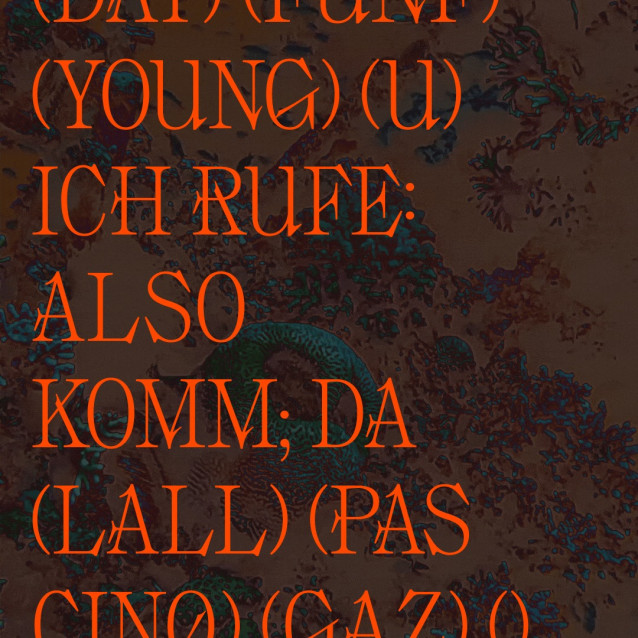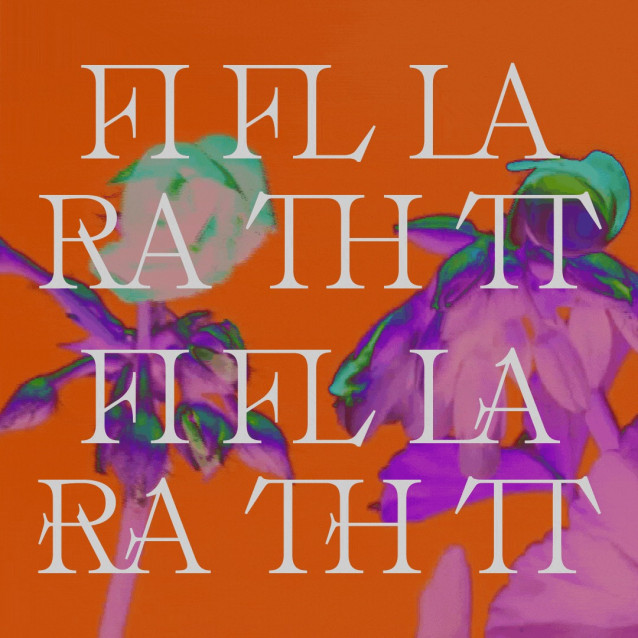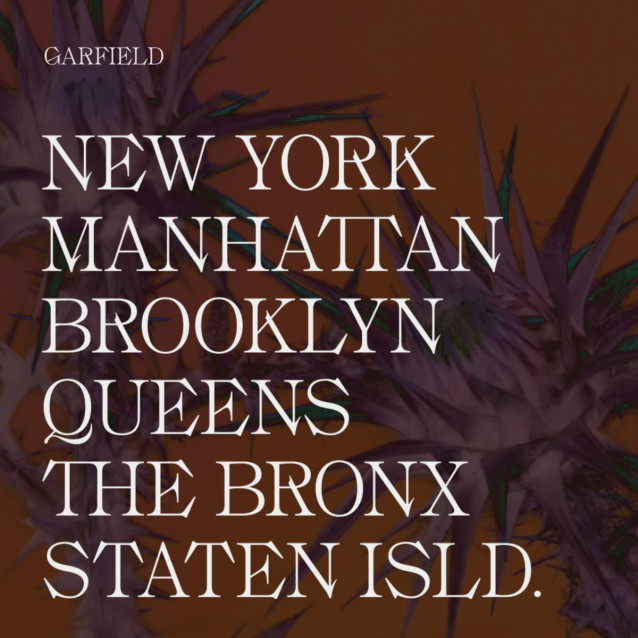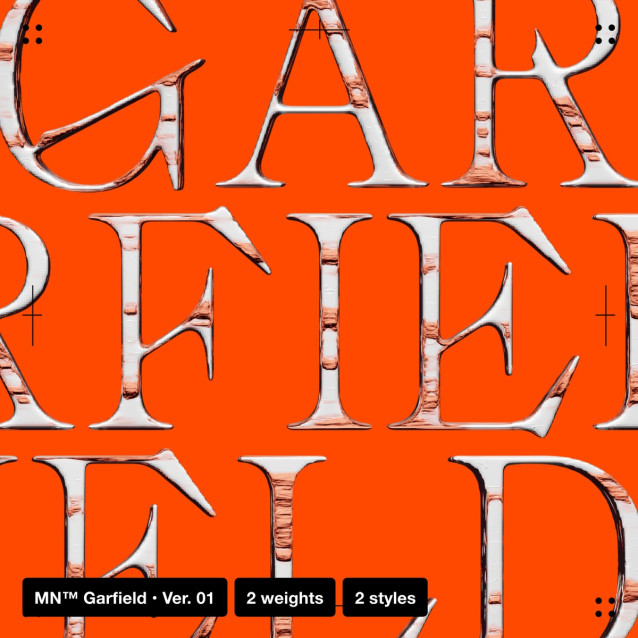
MN™ Garfield Font
MN™ Garfield Font imbues your brand with an elegance that stands out distinctively. Additionally, it offers the flexibility to personally refine the style through the use of stylistic alternates and variable widths.
The character set includes ligatures and Western European dialects. The font is uppercase only. Please read EULA (End User License Agreement) before the actual purchase.
MN™ Garfield is a revival font. Source: Garfield Series manufactured by the Standard Type Foundry Inland Type Foundry St. Louis, Mo., U.S.A.